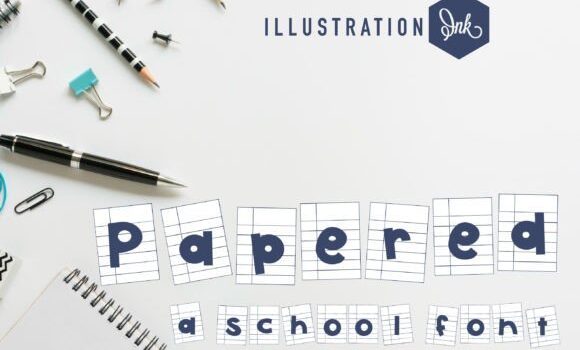
Papered Font – Free Download Introduction to Papered Font Papered font combines the charm of a whimsical sans serif with the nostalgia of toggled notebook paper. 📸 Preview Gallery 6 images 📌 Product Name Papered Font 👤 Author Illustration Ink